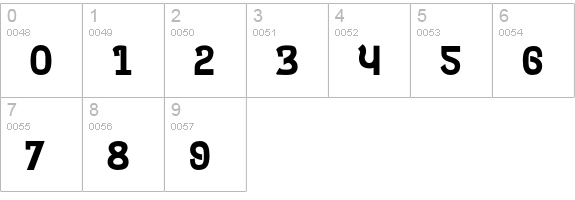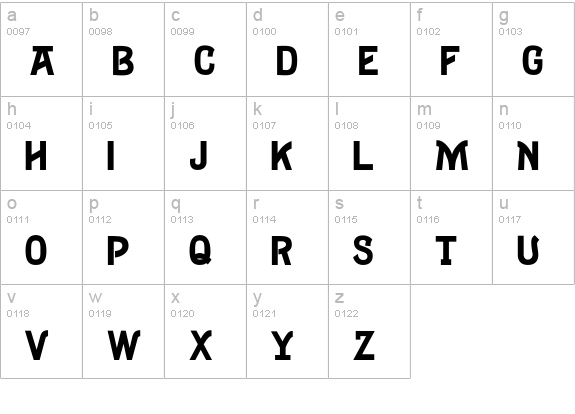
Tombstone-Solid Font Details
Introducing Tombstone-Solid, a captivating and versatile font that will transport you to the Wild West. With its bold and rugged letterforms, this typeface is perfect for adding a touch of old-time charm to your designs. Whether you're creating a vintage poster, designing a logo for a saloon, or working on a cowboy-themed invitation, Tombstone-Solid will bring authenticity and character to your project. This font is not only visually striking, but it also offers exceptional legibility, ensuring that your message is conveyed with clarity. The solid and sturdy nature of the letterforms gives off a sense of strength and durability, making it an ideal choice for headlines and titles that demand attention. What makes Tombstone-Solid even more enticing is the fact that it is available for free download at FontsMarket.com. Yes, you heard that right – this high-quality font can be yours without spending a dime. Simply head over to FontsMarket.com and start exploring the vast collection of free fonts, where Tombstone-Solid awaits, ready to elevate your designs to new heights. So, whether you're a seasoned designer or just starting your creative journey, Tombstone-Solid is a must-have font in your toolkit. Its vintage charm, exceptional legibility, and the fact that it is freely available make it an irresistible choice for all your Western-inspired design needs. Download Tombstone-Solid today and let your creativity run wild.